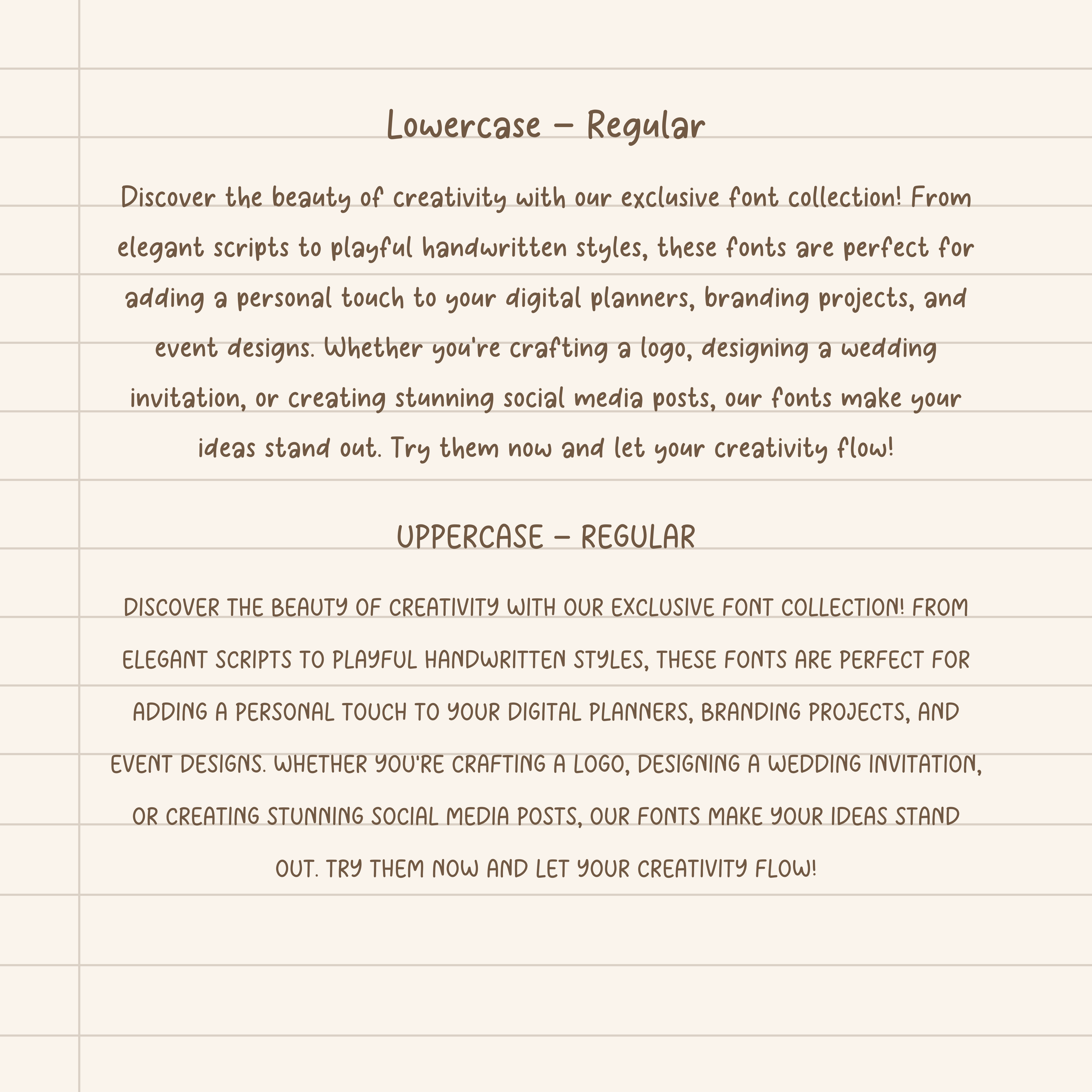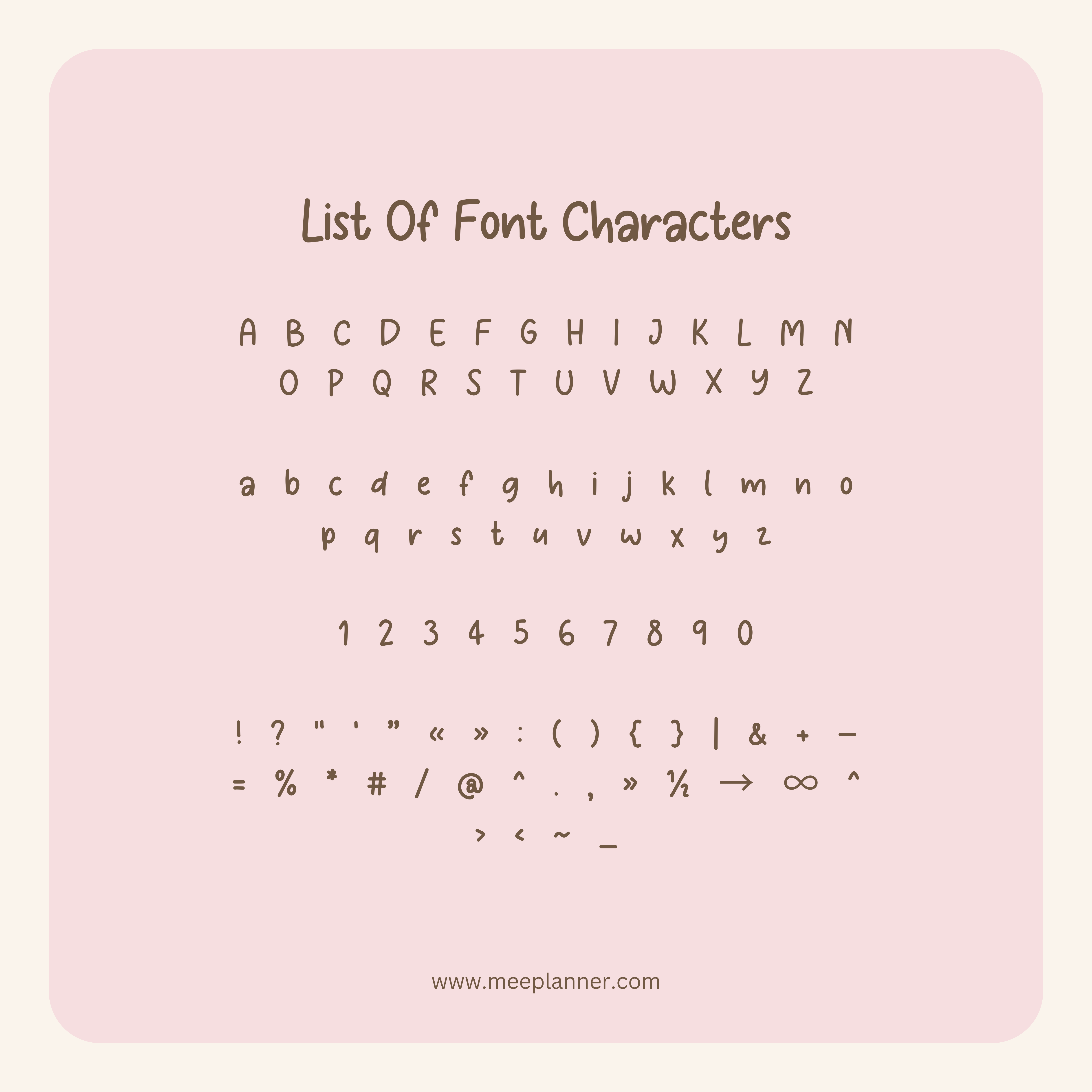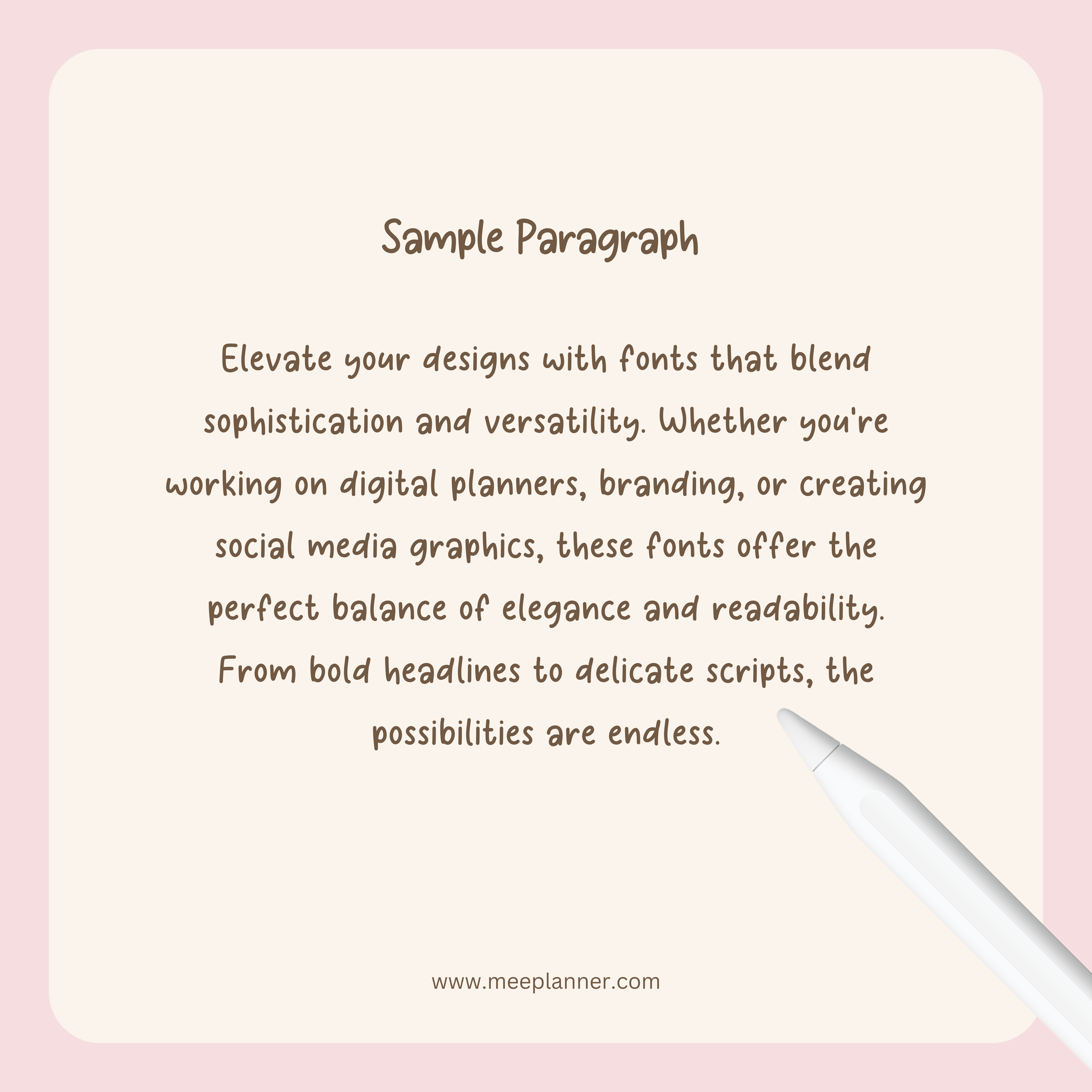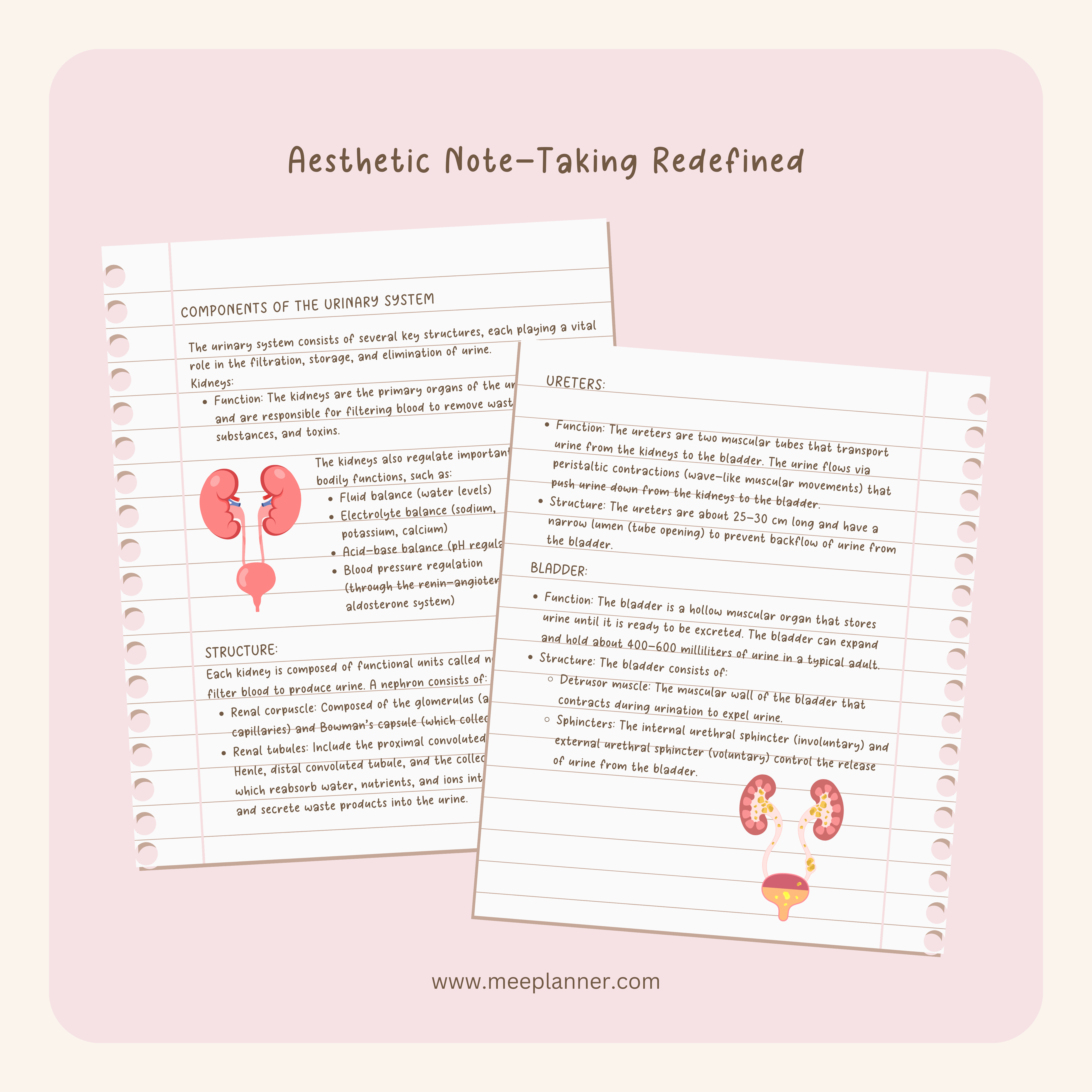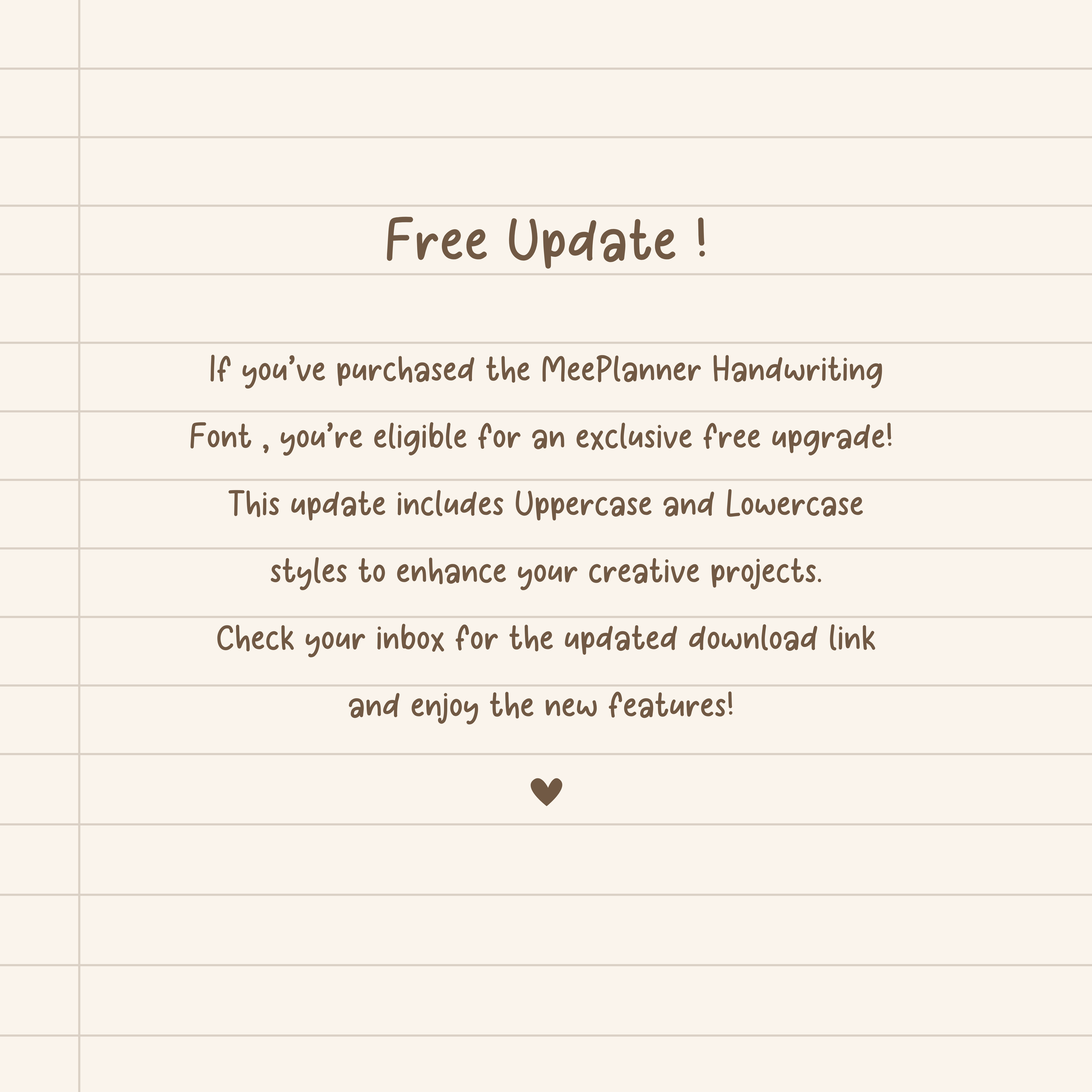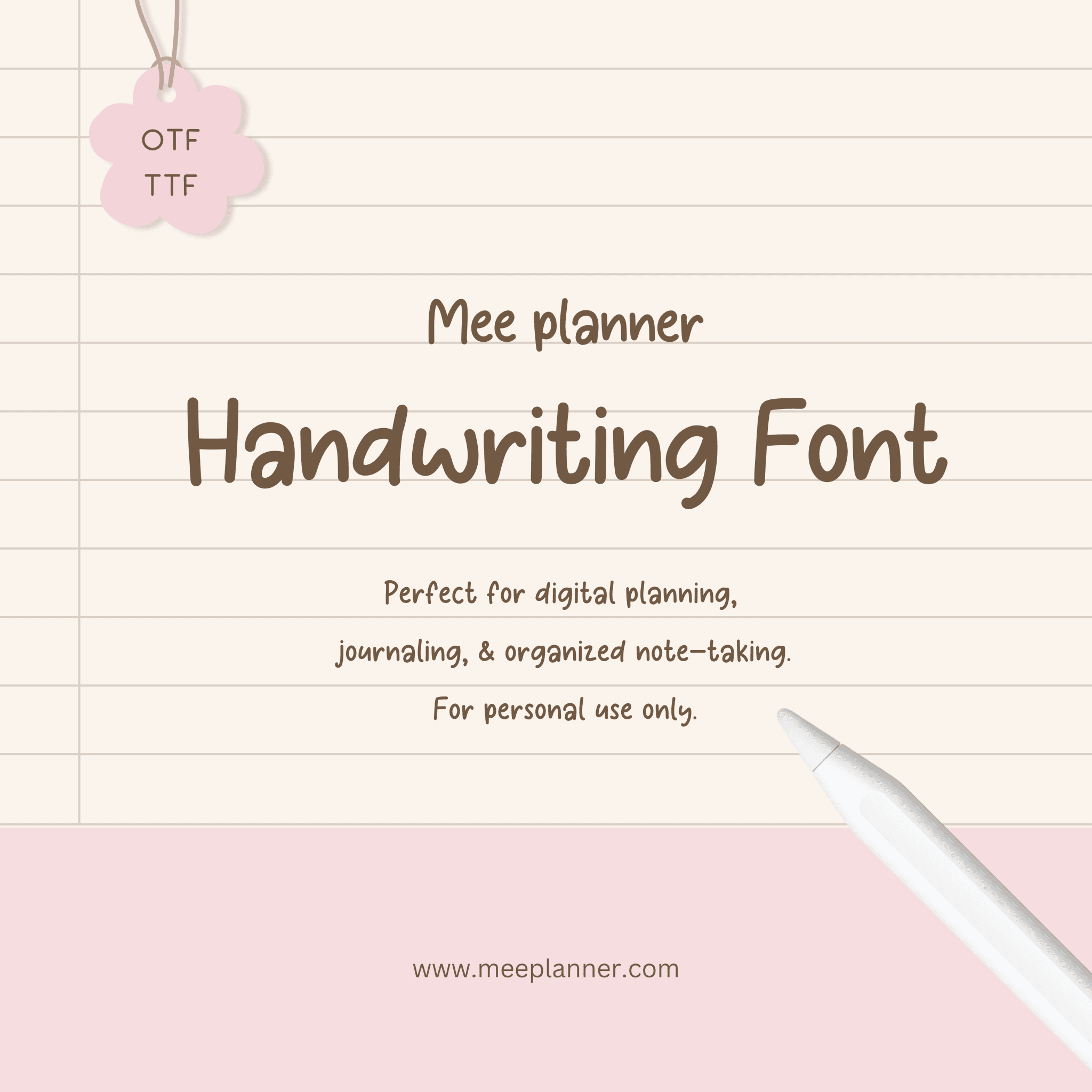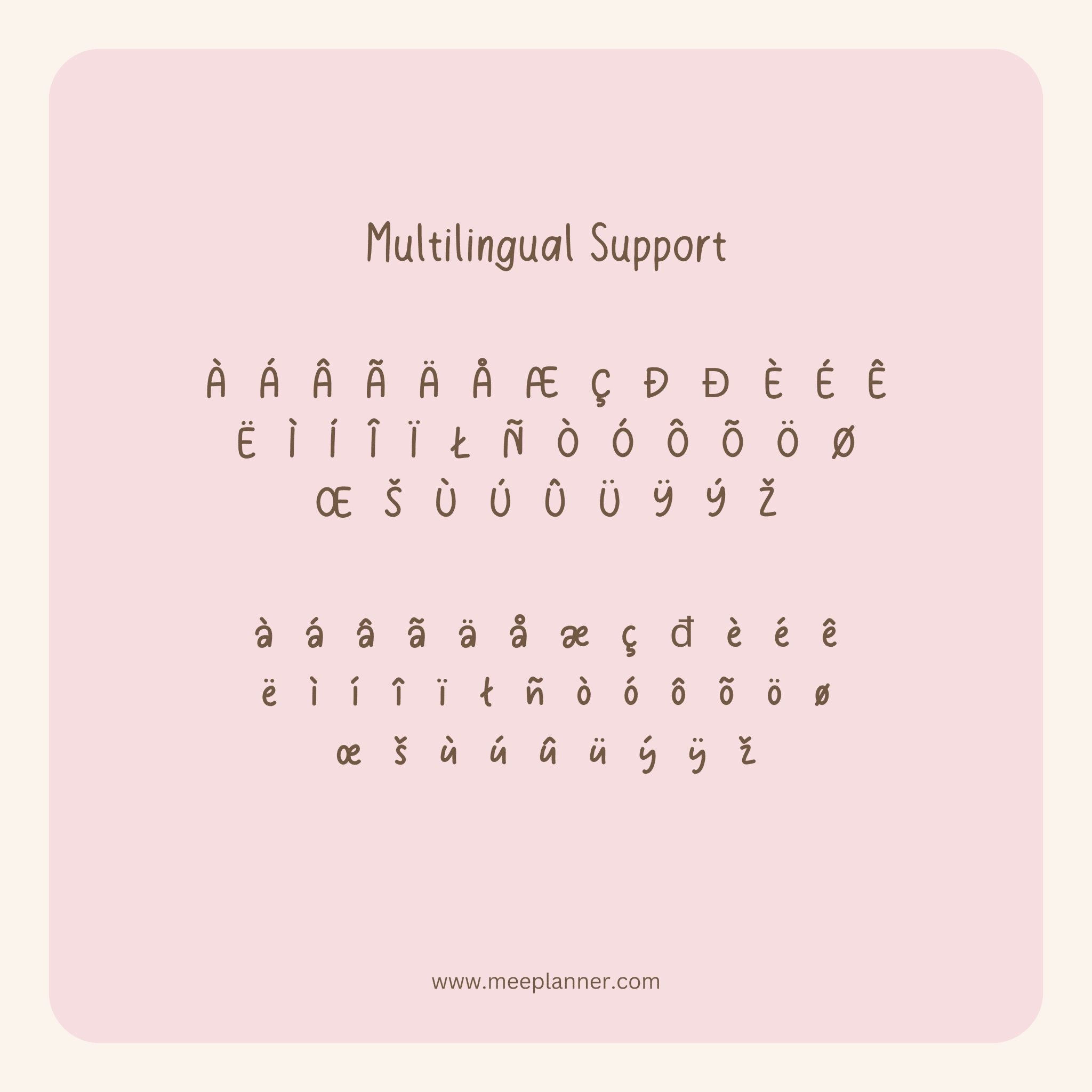
Elegant design meets functionality
Experience the blend of beauty and utility with our aesthetic handwriting font. Perfect for personal and professional projects, it elevates every piece to a new level of sophistication. Whether you're working on invitations or branding, this font makes your text visually appealing without compromising legibility.
Versatile applications across projects
This font's adaptability ensures it fits various themes seamlessly. From greeting cards to digital presentations, the gentle curves and stylish flair make it versatile. Its unique style enhances storytelling through design, creating an emotional connection with the audience effortlessly.
Effortless customization options included
With easily adjustable size and weight options, personalization is simple. Tailor it to suit any project's specific needs, whether it's casual or formal. Our aesthetic handwriting font ensures that your creations always have a distinctive touch that's both captivating and memorable.